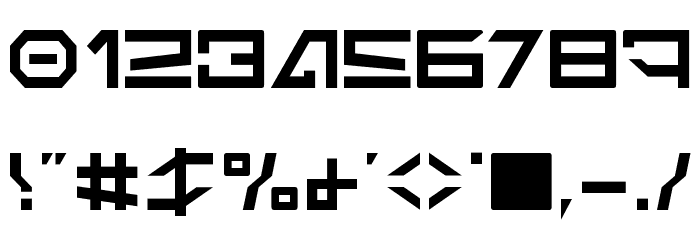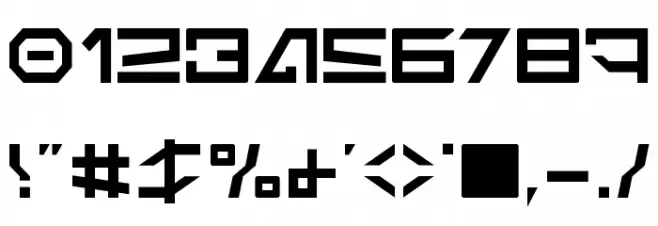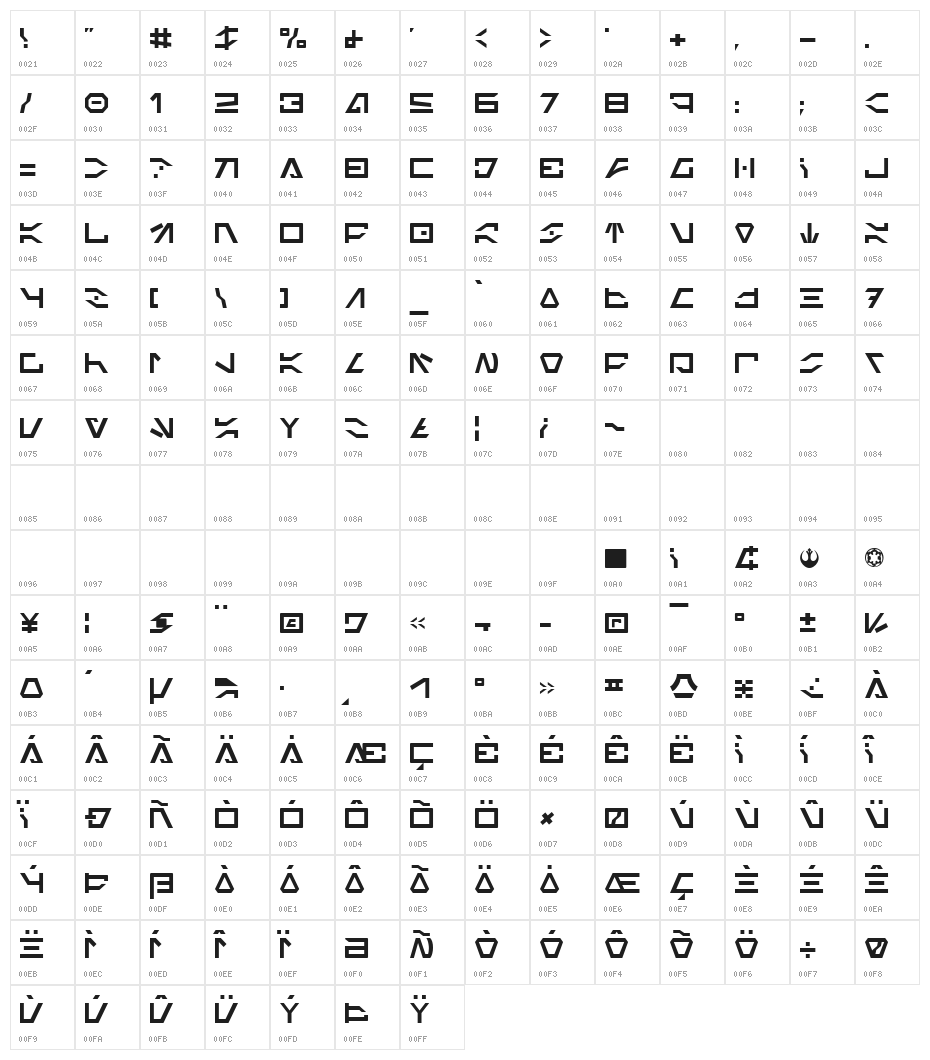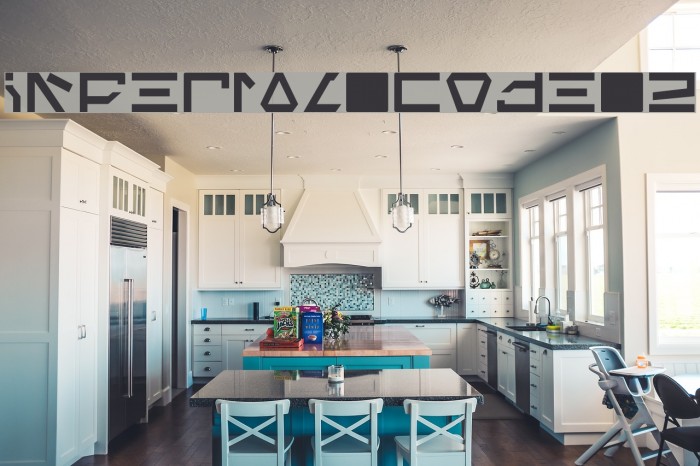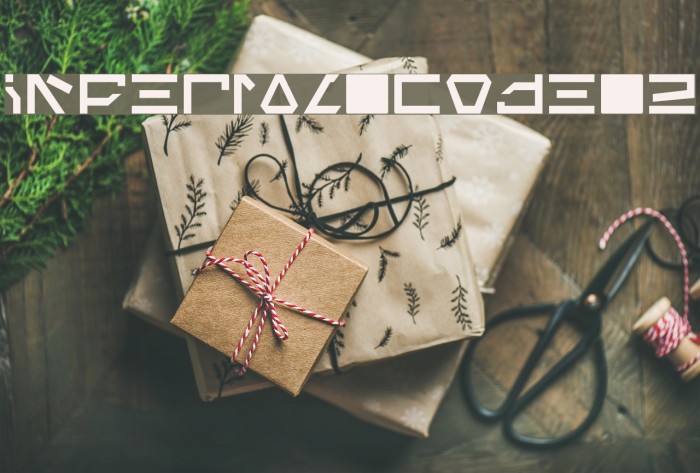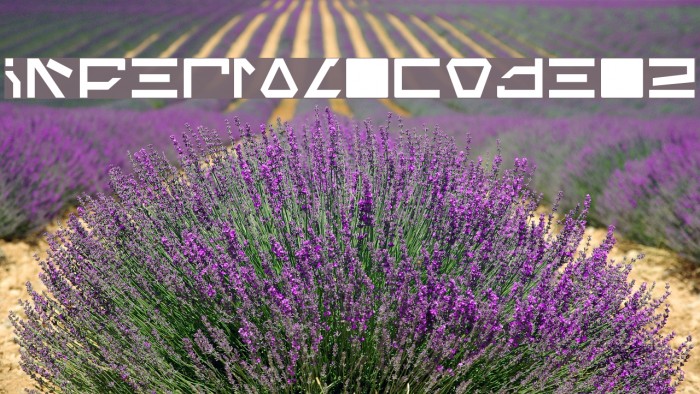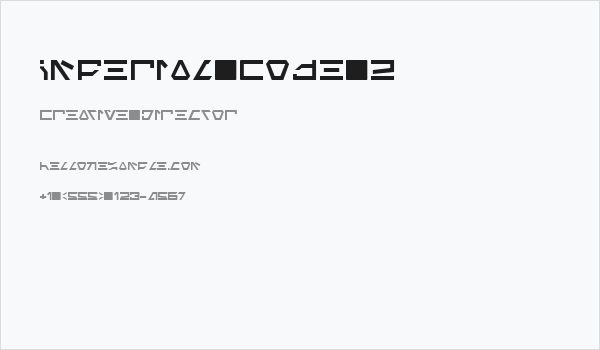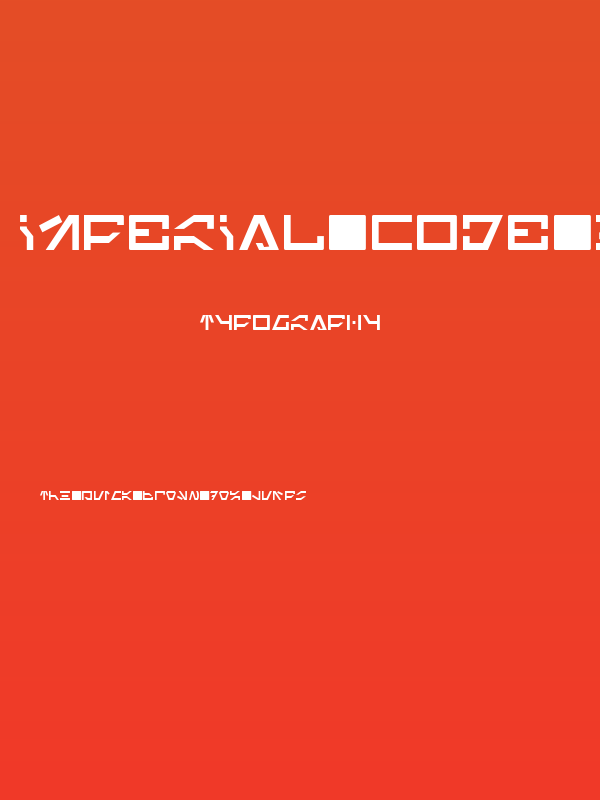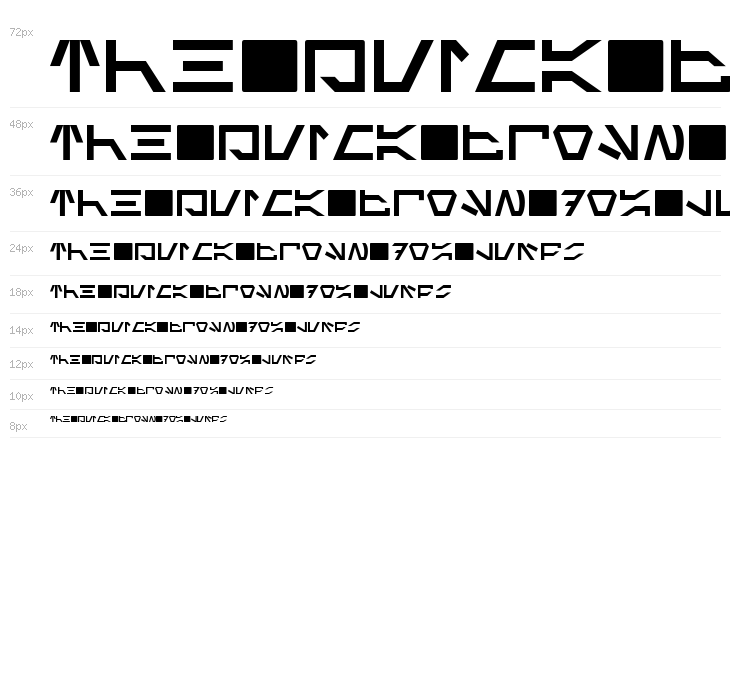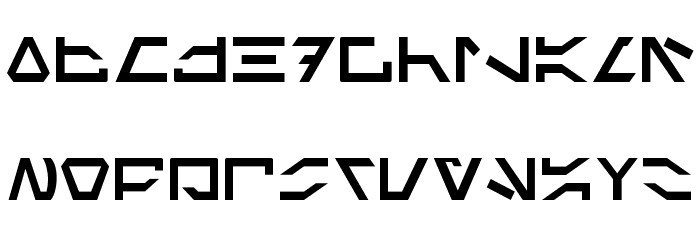
Imperial Code 2 Font
Imperial Code 2 Description
This font features a futuristic and angular design, characterized by sharp edges and geometric shapes. The letters are bold and have a distinct, almost robotic appearance, making them stand out with a unique style. The characters are constructed with a combination of straight lines and angular cuts, giving them a high-tech, digital feel. The numbers and special characters follow the same design principles, ensuring consistency across the entire typeface. This font is ideal for projects that require a modern and edgy look, such as technology branding, sci-fi themes, or gaming interfaces.
| Use Case | Logos, Headlines, Digital media |
| Proposed Projects | Ideal for technology branding, sci-fi themes, gaming interfaces, and digital media. |